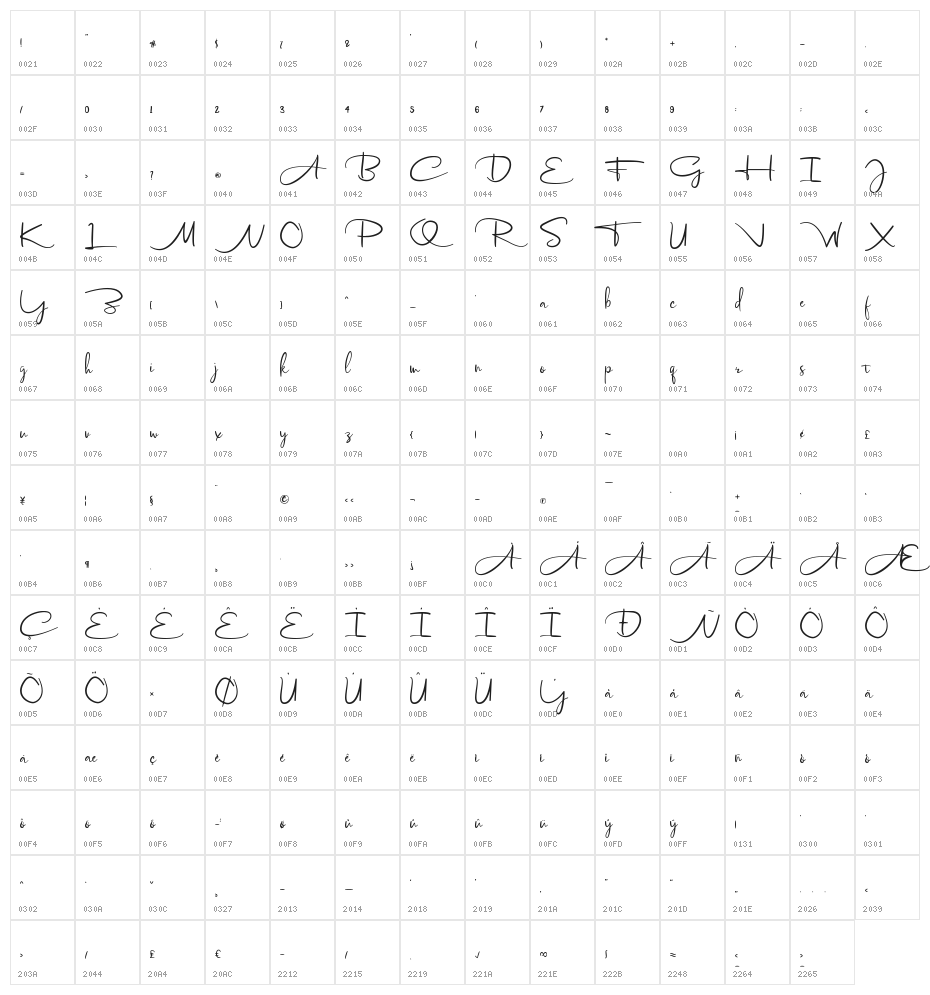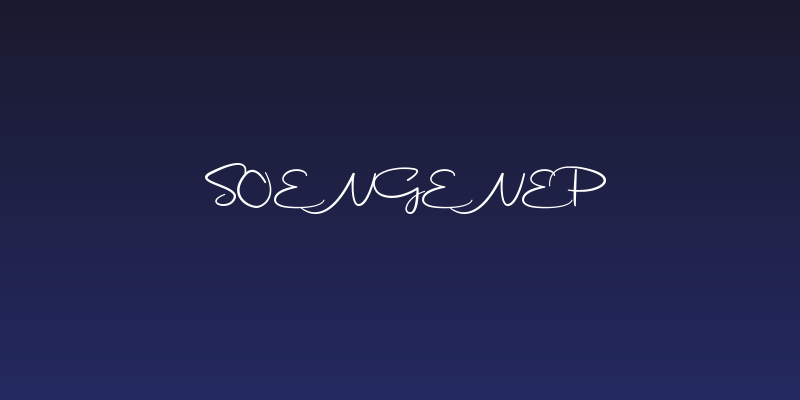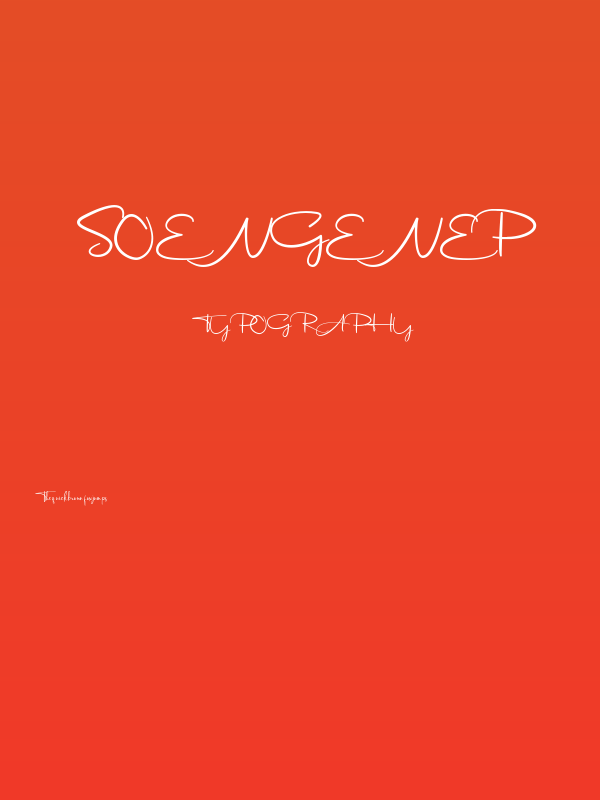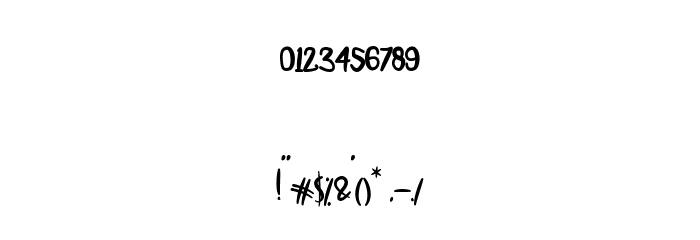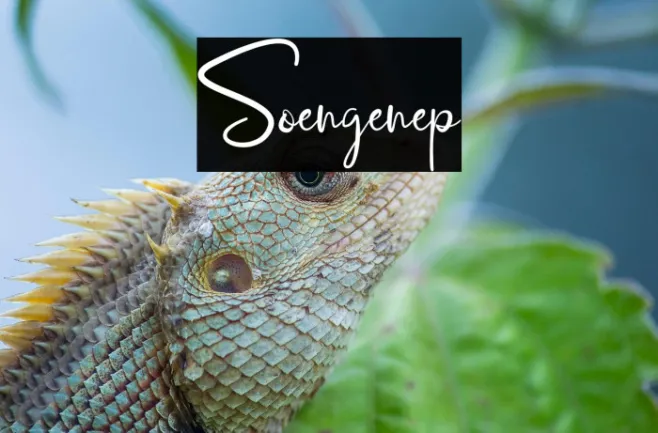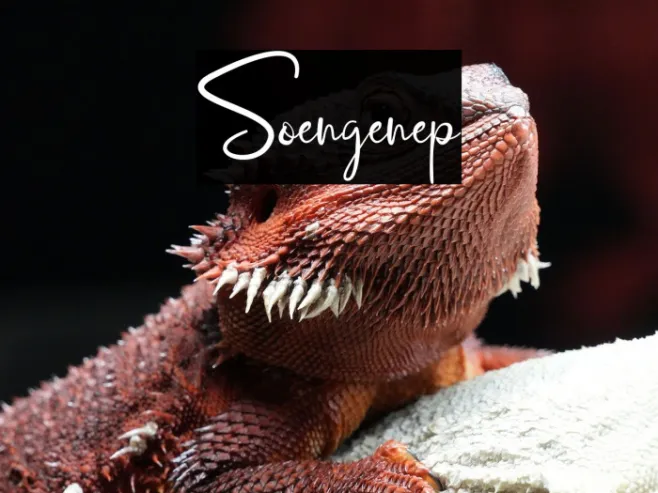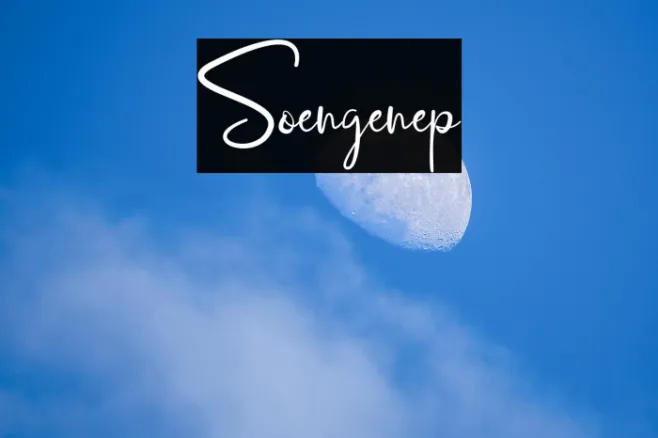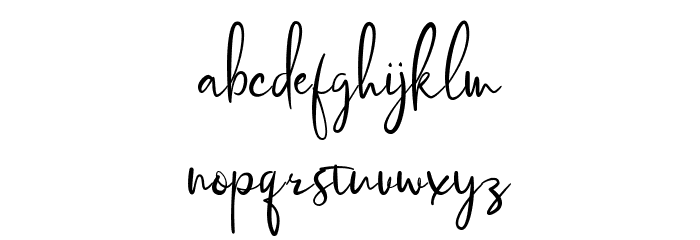
Soengenep Font
Soengenep Description
This font features an elegant and flowing script style, characterized by its smooth, connected strokes and a handwritten appearance. The uppercase letters are particularly ornate, with sweeping curves and loops that add a touch of sophistication. The lowercase letters maintain a consistent flow, enhancing readability while retaining a personal, artistic flair. The numerals and special characters are crafted with the same attention to detail, ensuring a cohesive look across all text. This font is ideal for projects that require a personal touch, such as invitations, greeting cards, or branding materials.
| Use Case | Headlines, Invitations, Branding |
| Proposed Projects | Ideal for wedding invitations, greeting cards, personal branding, and artistic projects. |